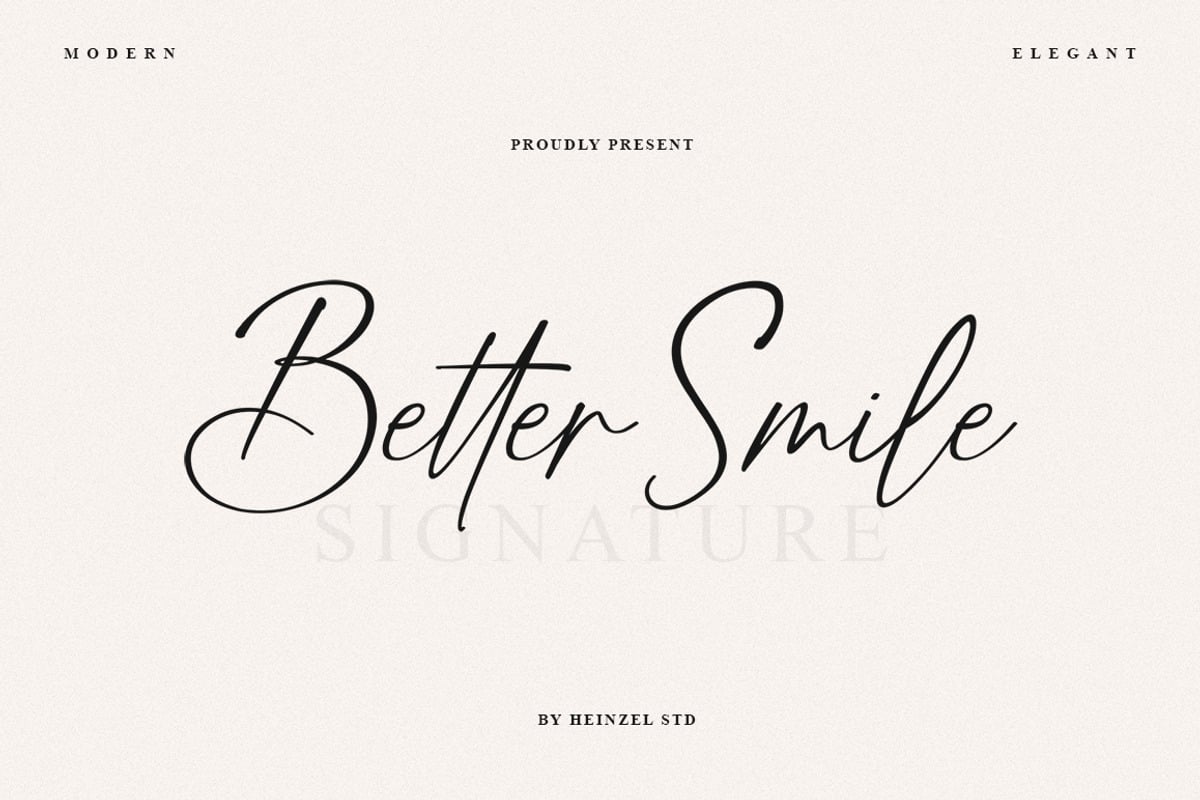
Better Smile Signature Font
Timeless, flowing, and effortlessly elegant — Better Smile Signature is the handwritten font your designs have been waiting for.
Better Smile Signature is a beautifully flowing handwritten typeface with an elegant, refined touch that feels both modern and timeless. Its incredibly distinct style makes it perfect for projects that call for a personal, handcrafted aesthetic.
This font looks stunning across a wide range of design applications, including:
- Wedding invitations
- Thank you cards
- Quotes and greeting cards
- Logos and branding
- Business cards
- Any design that needs a handwritten touch
Better Smile Signature Features:
- Uppercase and lowercase characters
- Numerals and punctuation
- Ligatures
- Multilingual support: ÁÂÃÄÅÆÇÈÉÊËÌÍÎÏÐÑÒÓÔÕÖØÙÚÛÜÝÞß àáâãäåæçèéêëìíîïðñòóôõöøùúûüýÿþ
This character set supports 21 languages: Afrikaans, Basque, Breton, Catalan, Danish, Dutch, English, Finnish, French, Gaelic (Irish, Scots), German, Icelandic, Indonesian, Irish, Italian, Norwegian, Portuguese, Saami (Southern), Spanish, Swahili, and Swedish.